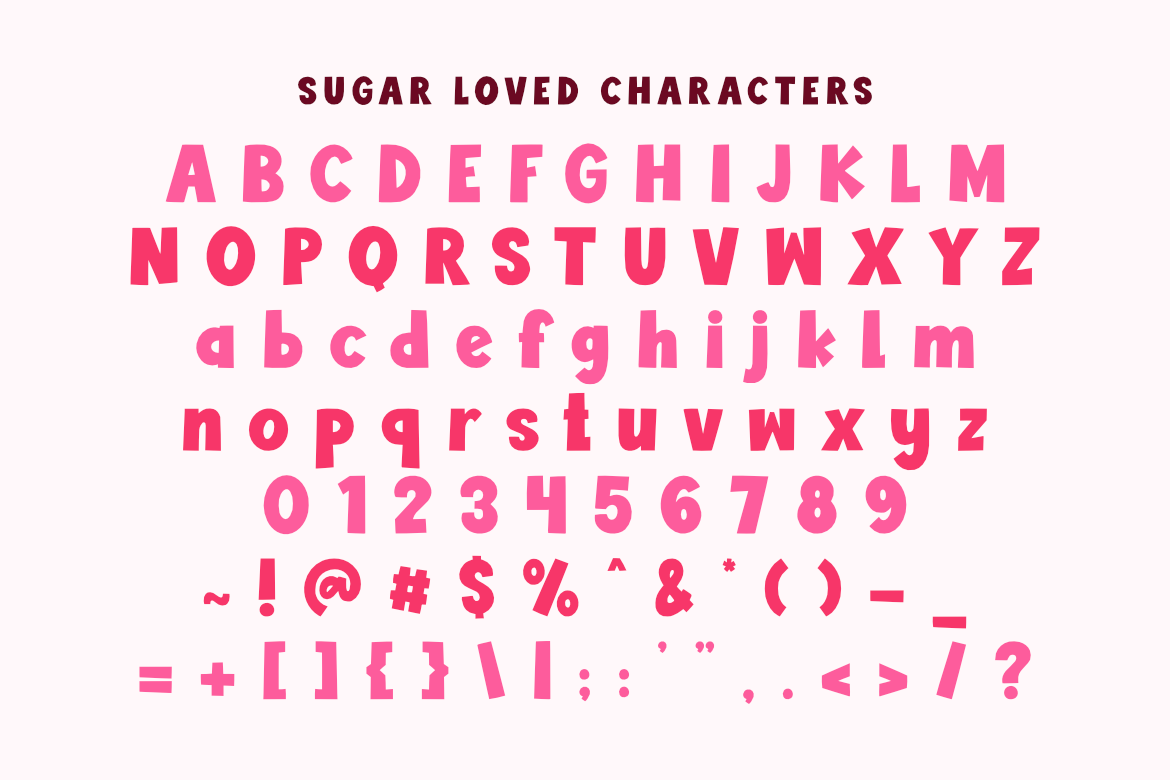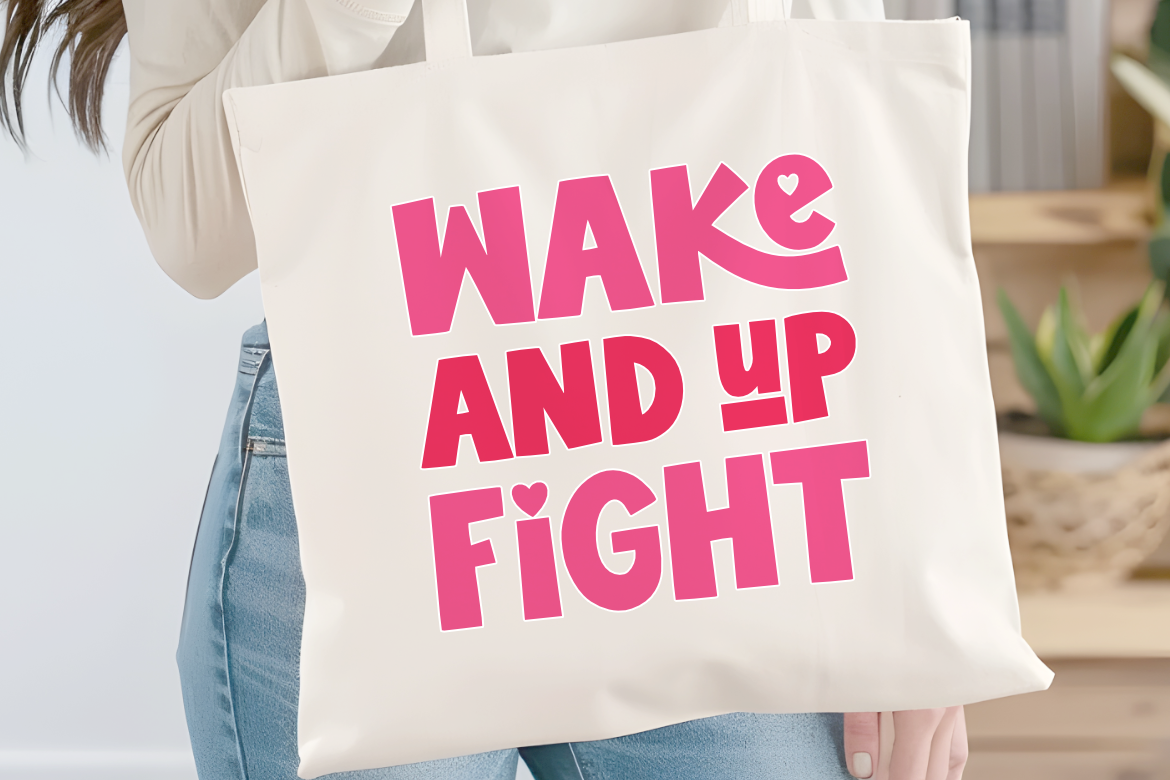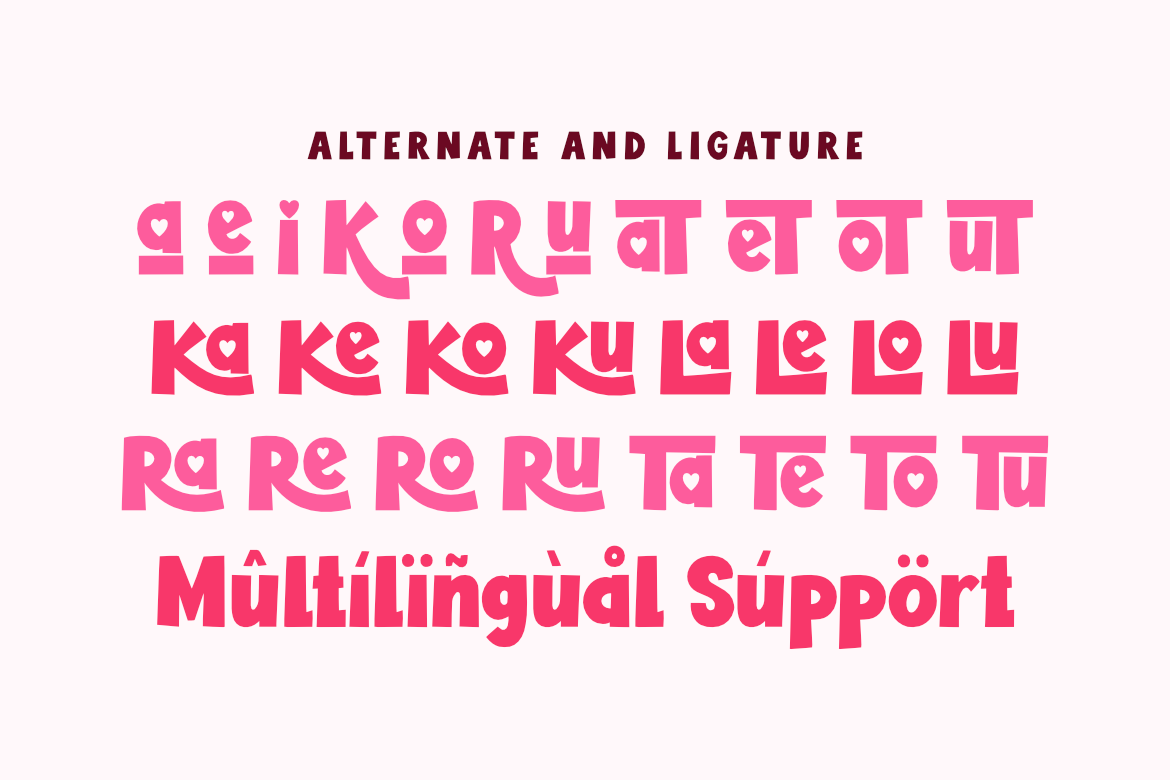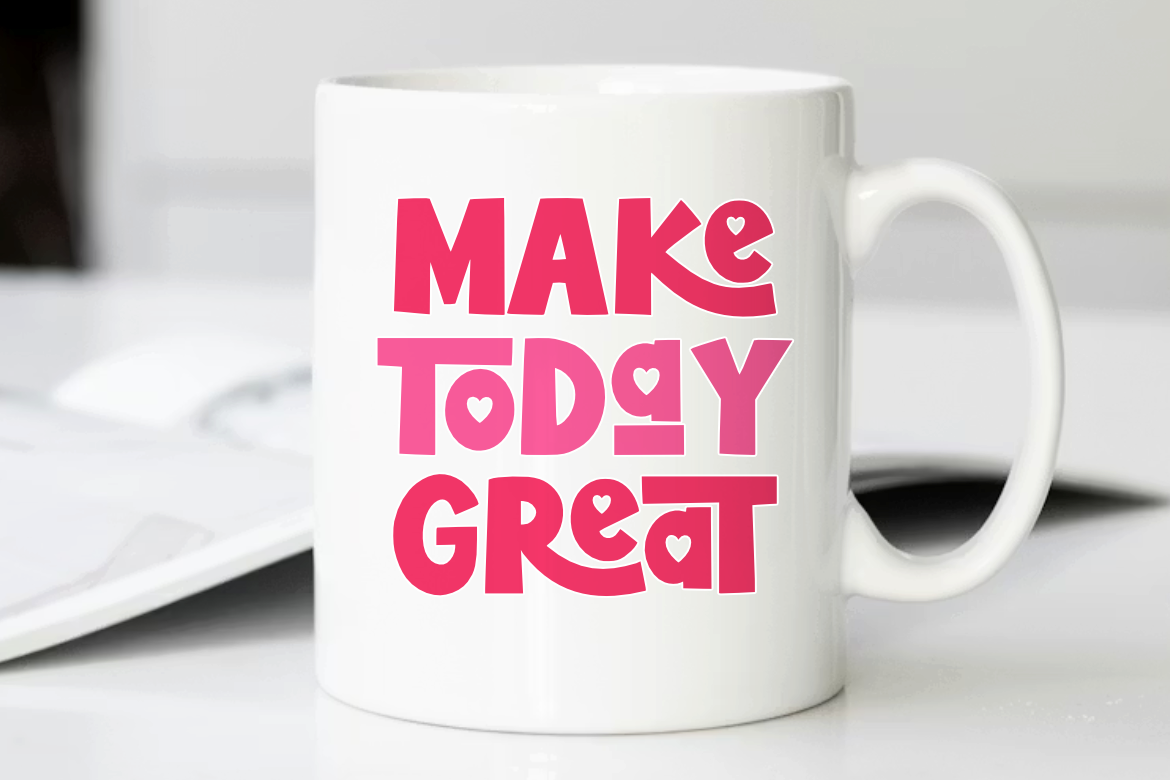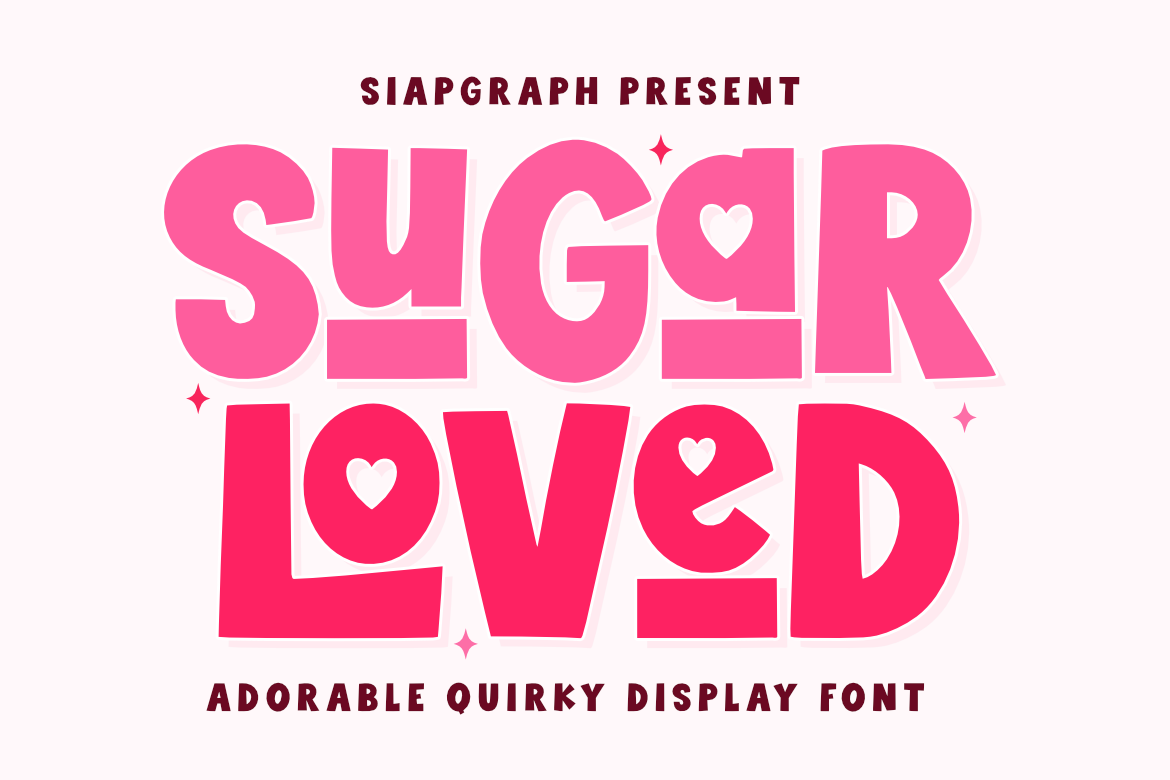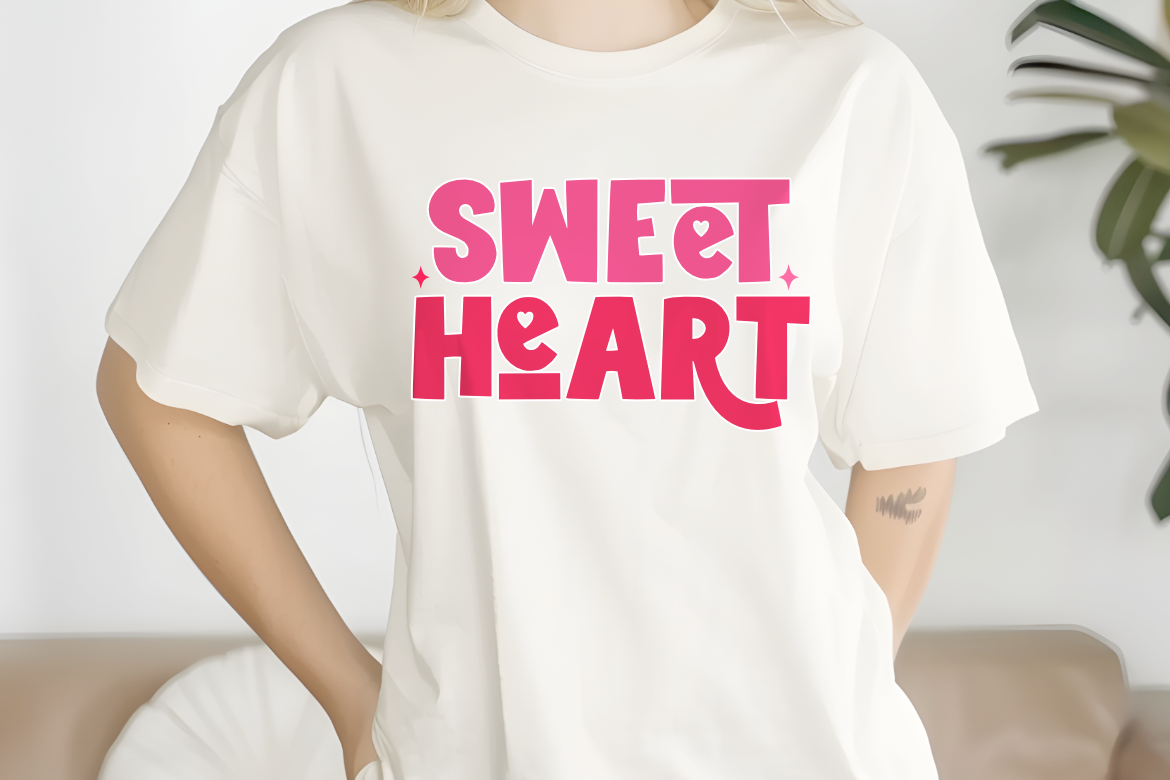
Sugar Loved - Adorable Quirky Display Font for Cricut and Sublimation
Playful Quirky Display Font for Cricut and Sublimation
Sugar loved is an adorable quirky display font inspired by the sweetness of colorful candies and the playful spirit of hand-drawn romantic doodles. This typeface features bold, chunky strokes with delightful heart accents cleverly integrated into the characters, creating a whimsical and loving atmosphere. The smooth and thick outlines are specifically optimized for the crafting community, ensuring a seamless experience for vinyl cutting, sublimation, and high-quality printing.
Perfect for: creating high-converting SVG cut files, personalized Valentine's Day t-shirts, adorable stickers, custom mugs, nursery wall decor, teacher appreciation gifts, and playful social media graphics. Whether you are a professional Print on Demand (POD) seller or a DIY enthusiast, this font adds a touch of charm and personality to every project.
Great for holiday themes like Valentine's Day, Mother's Day, Anniversaries, and Birthdays, adding a sweet, optimistic, and heartfelt vibe to all your seasonal designs!